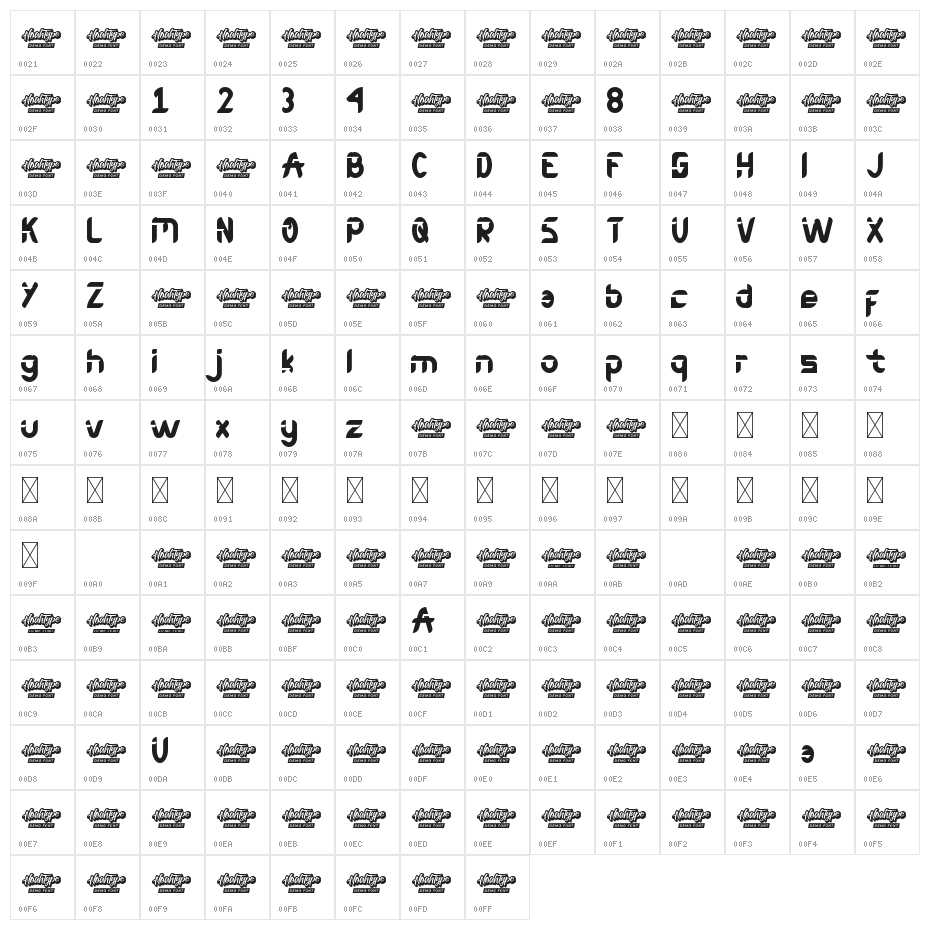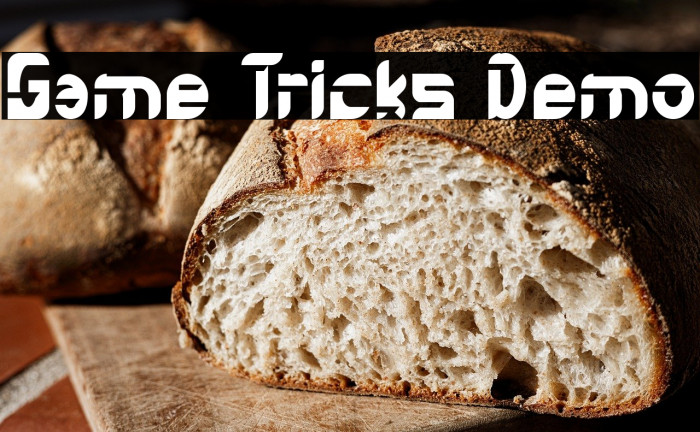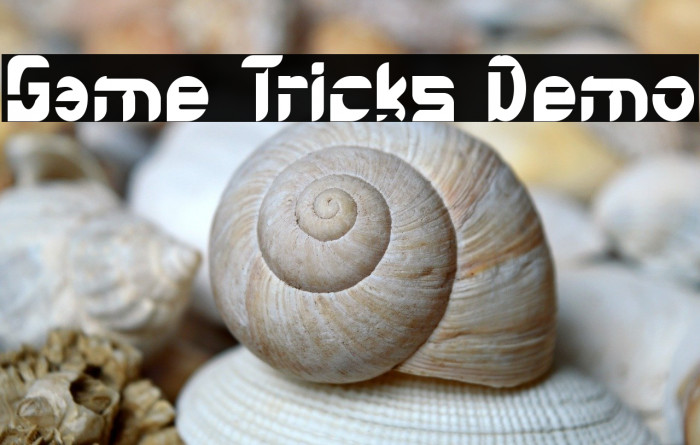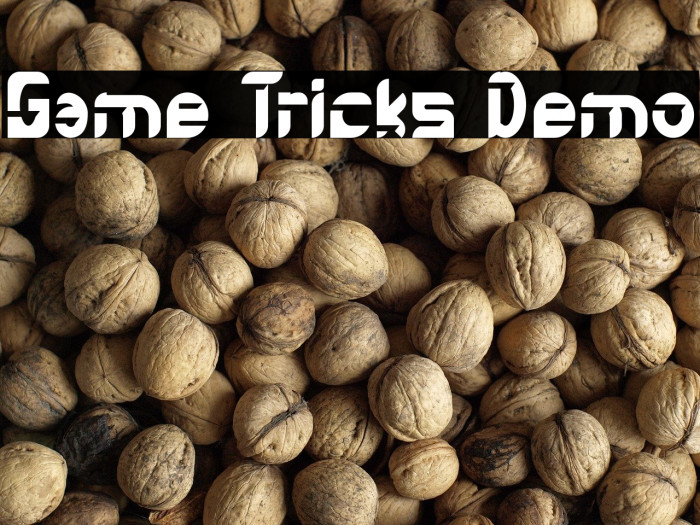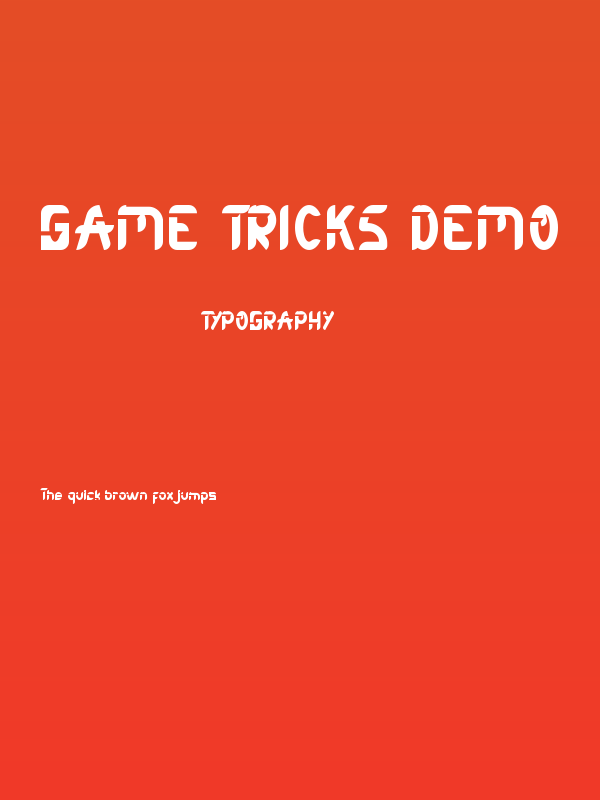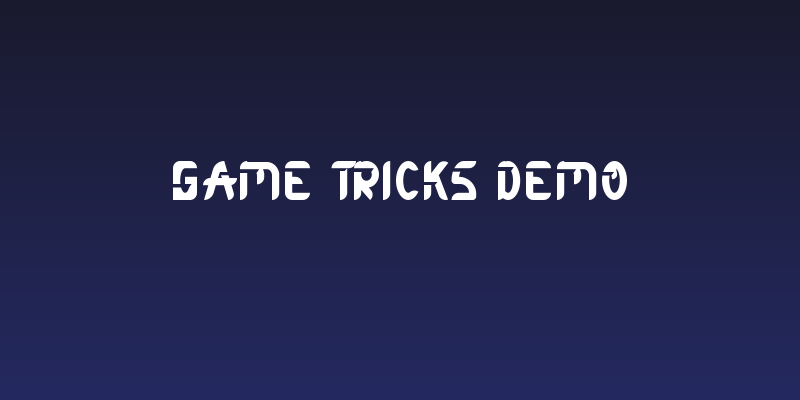
Game Tricks Demo Font
Game Tricks Demo Description
This font features a bold and futuristic design with a unique geometric style. The uppercase and lowercase letters are crafted with sharp angles and distinct cuts, giving it a modern and edgy appearance. The numbers follow the same design principles, ensuring consistency across all characters. The special characters are also designed to match the overall aesthetic, making it suitable for projects that require a strong visual impact. The font's structure is solid and robust, making it ideal for attention-grabbing headlines or logos.
| Proposed Projects | Ideal for video game titles, tech branding, futuristic posters, and digital media. |